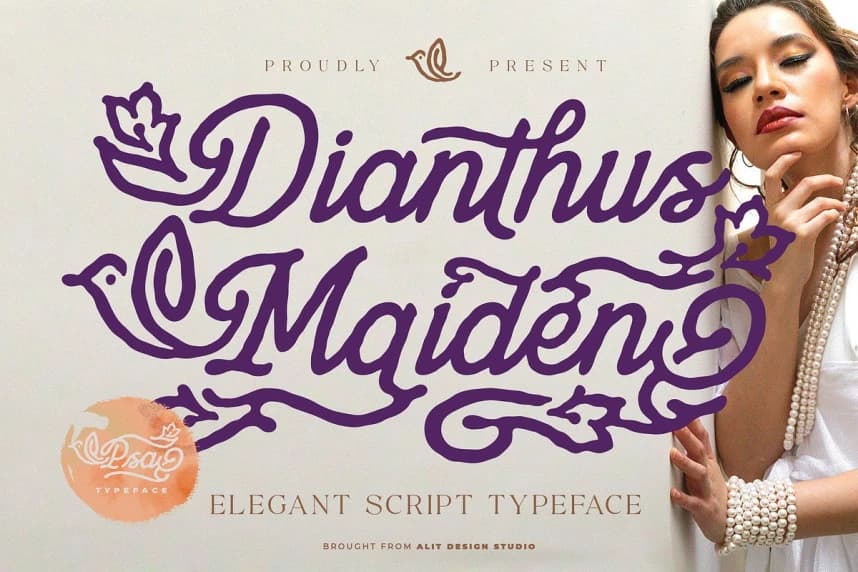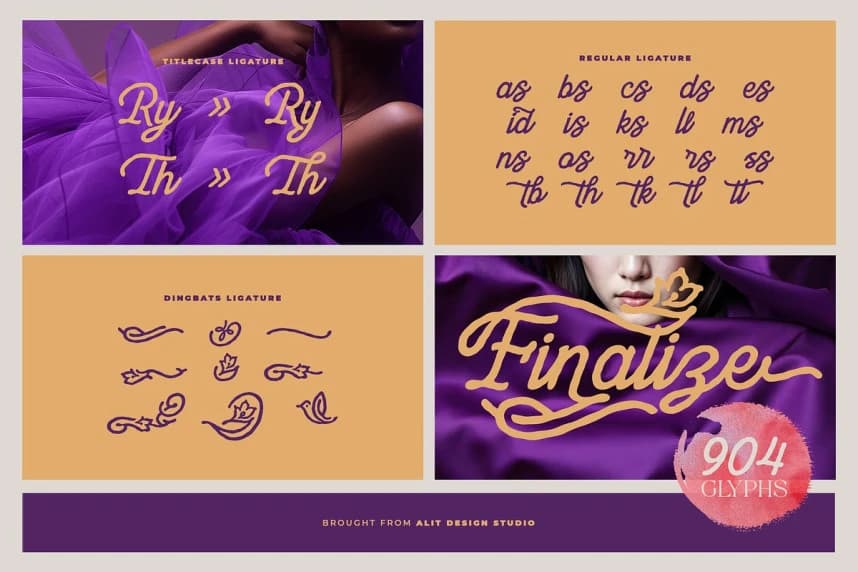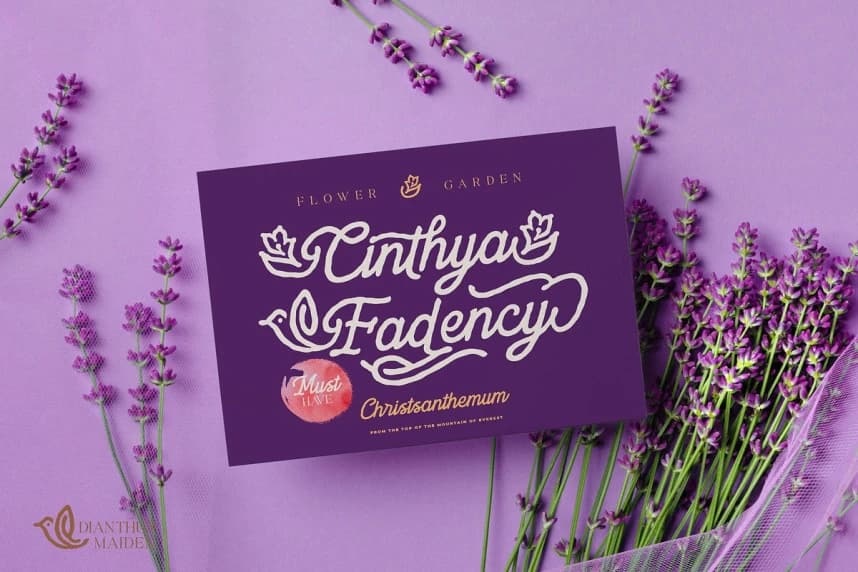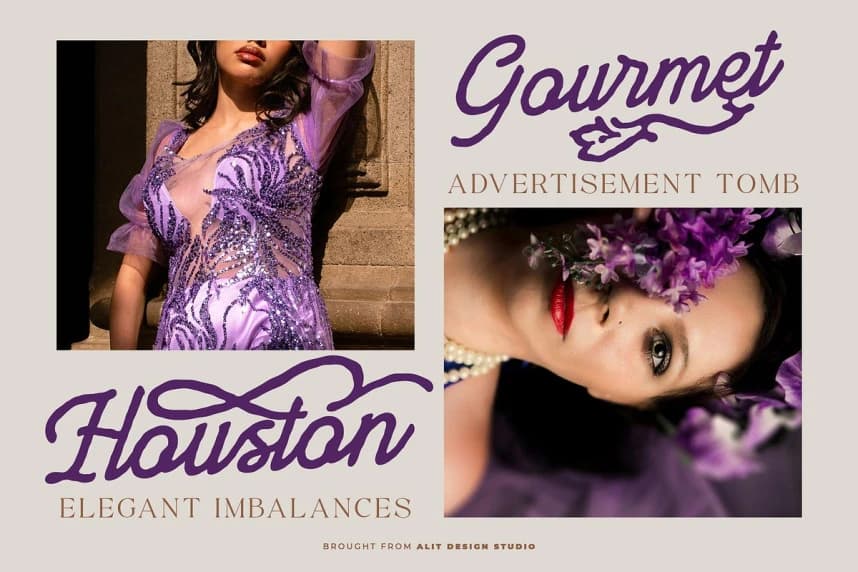
Dianthus Maiden Font
Dianthus Maiden Font, a breathtakingly elegant and luxurious script font designed to bring a touch of graceful romance to your creative projects. Masterfully crafted to capture the essence of fluid, hand-drawn calligraphy, this typeface blends classic sophistication with modern botanical beauty.
Dianthus Maiden